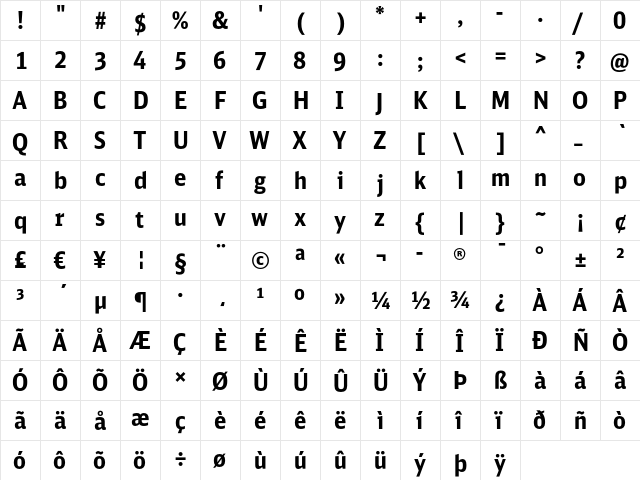
DB Sans Cond Bold Font Preview
Design Context for DB Sans Cond Typeface
DB Sans Cond takes a measured approach to typography — its balanced proportions and neutral character make it a reliable workhorse for both digital and print work. The heavy weight commands attention and anchors typographic hierarchies. The condensed width makes it efficient for tight spaces without sacrificing legibility.